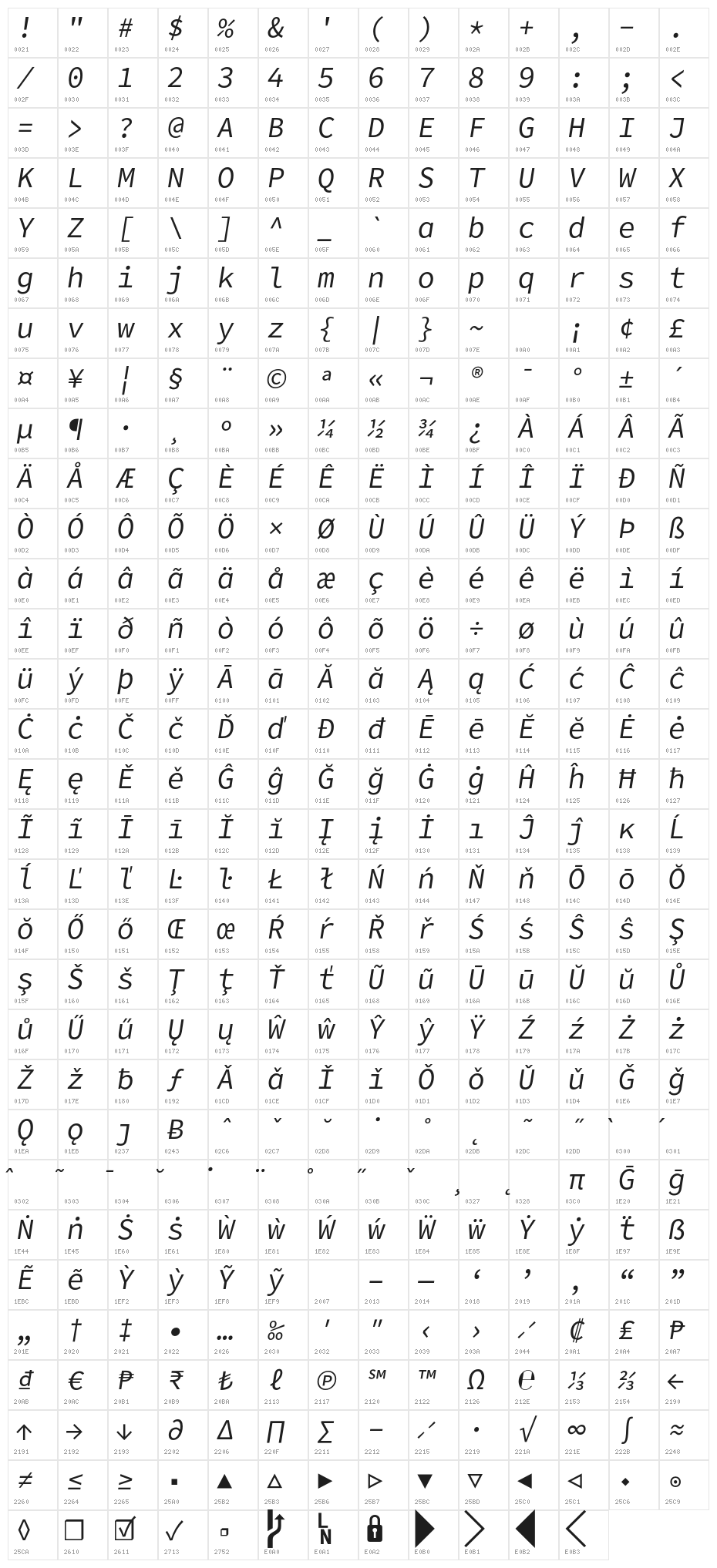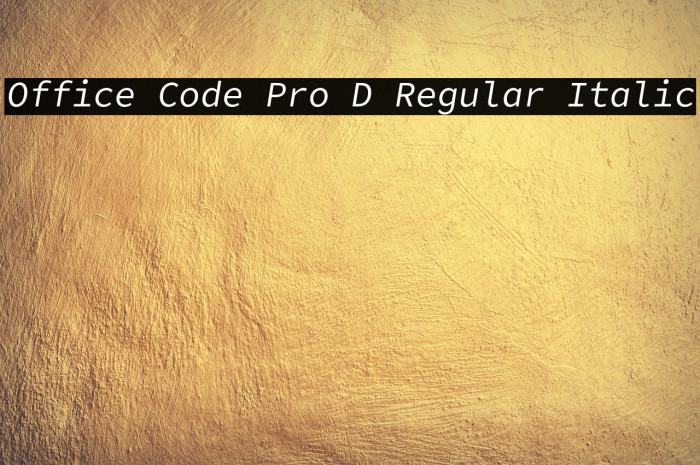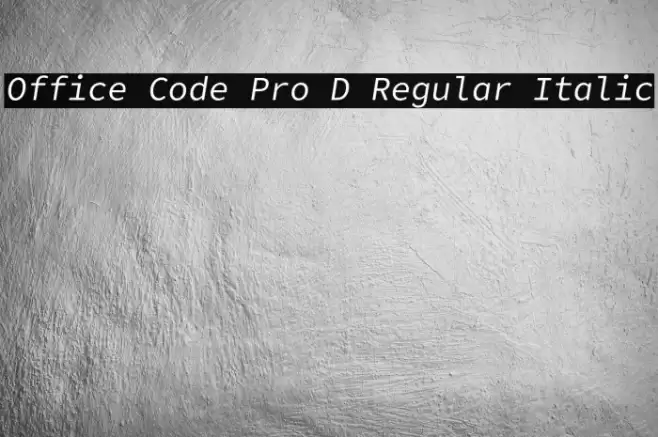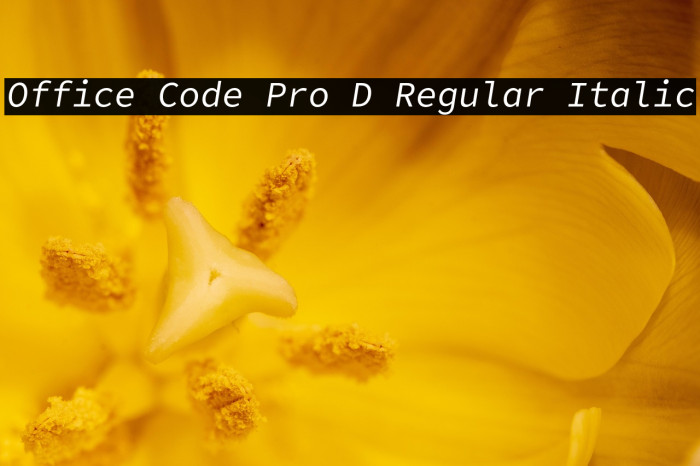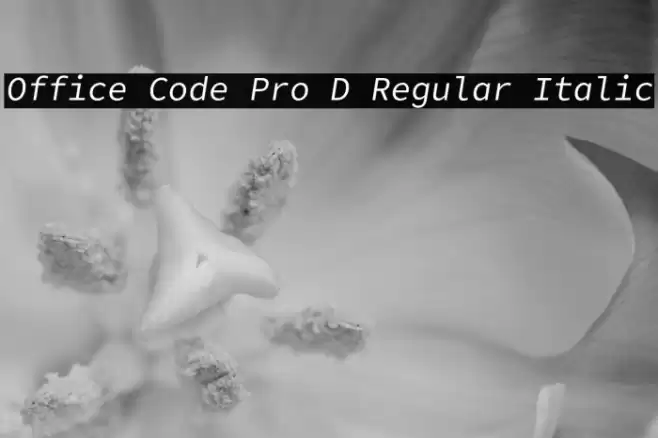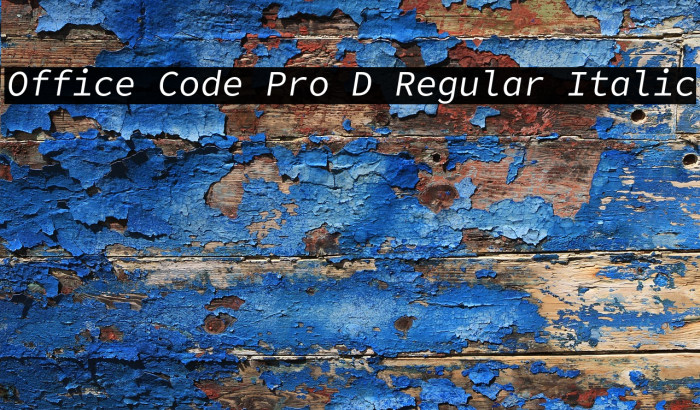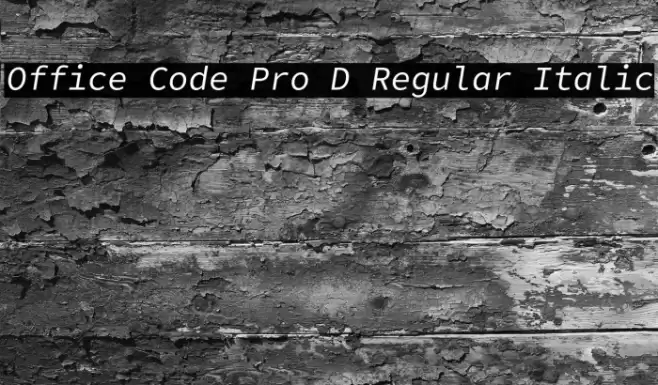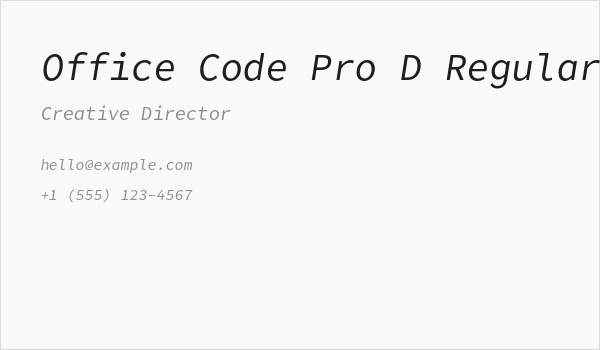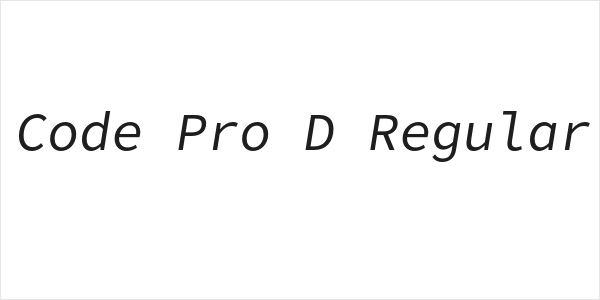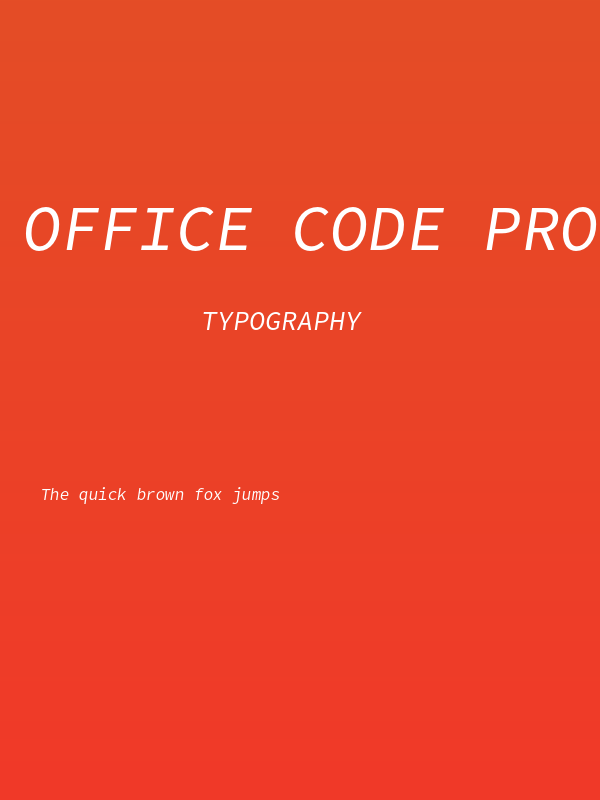
Office Code Pro D Regular Italic Font
Office Code Pro D Regular Italic Description
This font exhibits a clean and modern aesthetic with a slight slant, indicating its italic style. The characters are well-proportioned, offering a harmonious balance between readability and style. The uppercase letters are bold and assertive, while the lowercase letters maintain a consistent flow, enhancing the font's overall elegance. Numerals are clear and distinct, making them suitable for both text and numerical data presentation. The special characters are designed to blend seamlessly with the alphabet, ensuring a cohesive look across various uses. This font's design is versatile, making it ideal for a range of applications from digital interfaces to print media.
| Proposed Projects | Ideal for coding environments, modern web design, digital interfaces, and print media. |